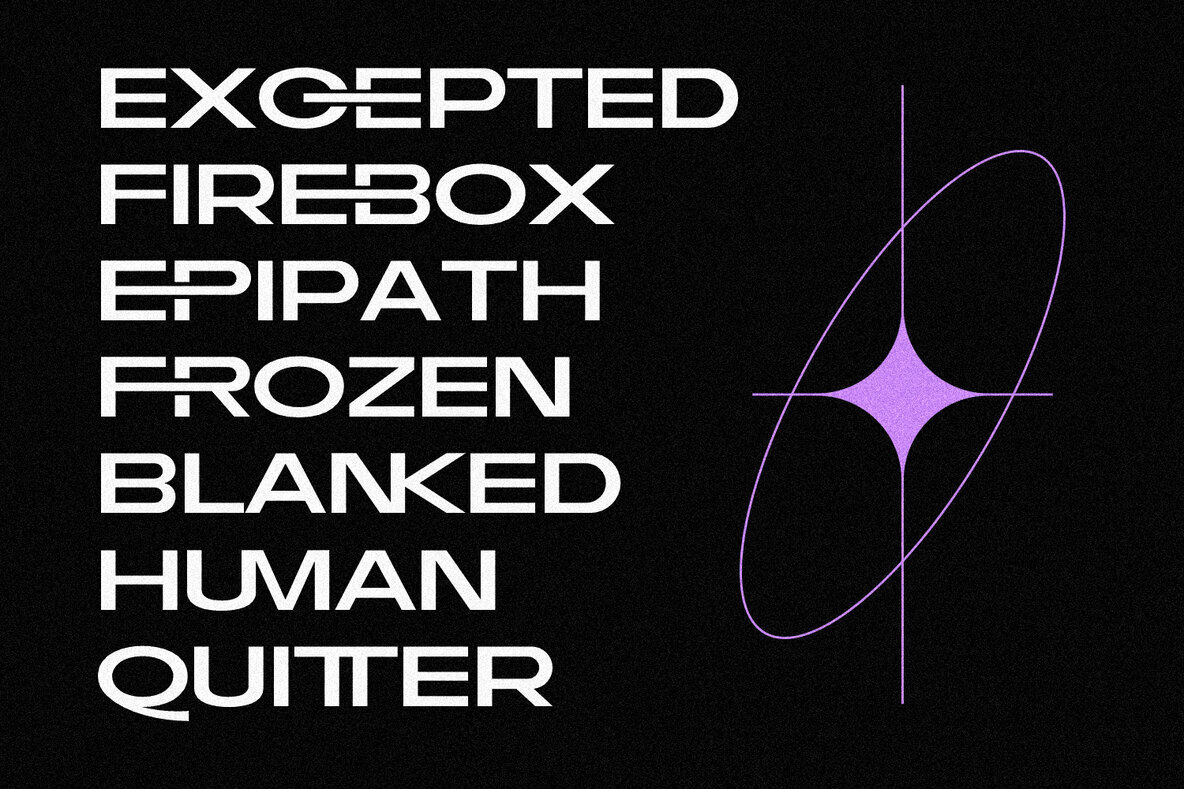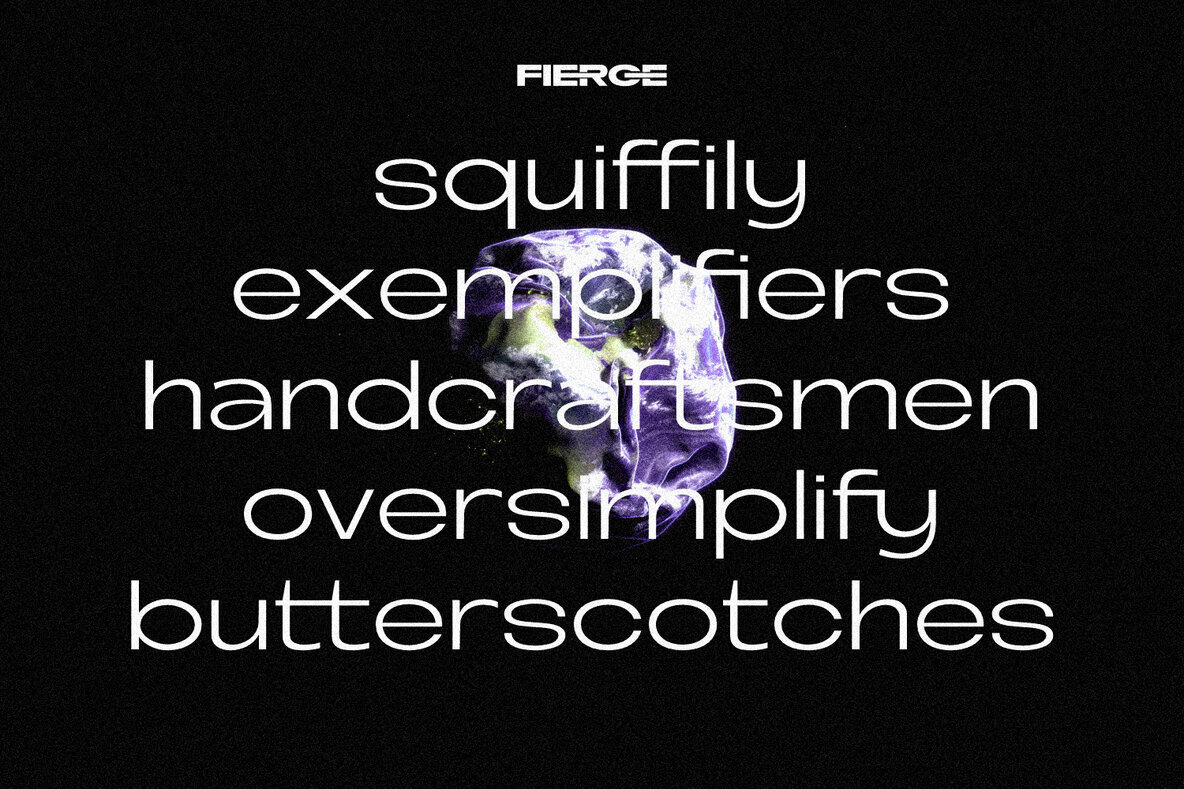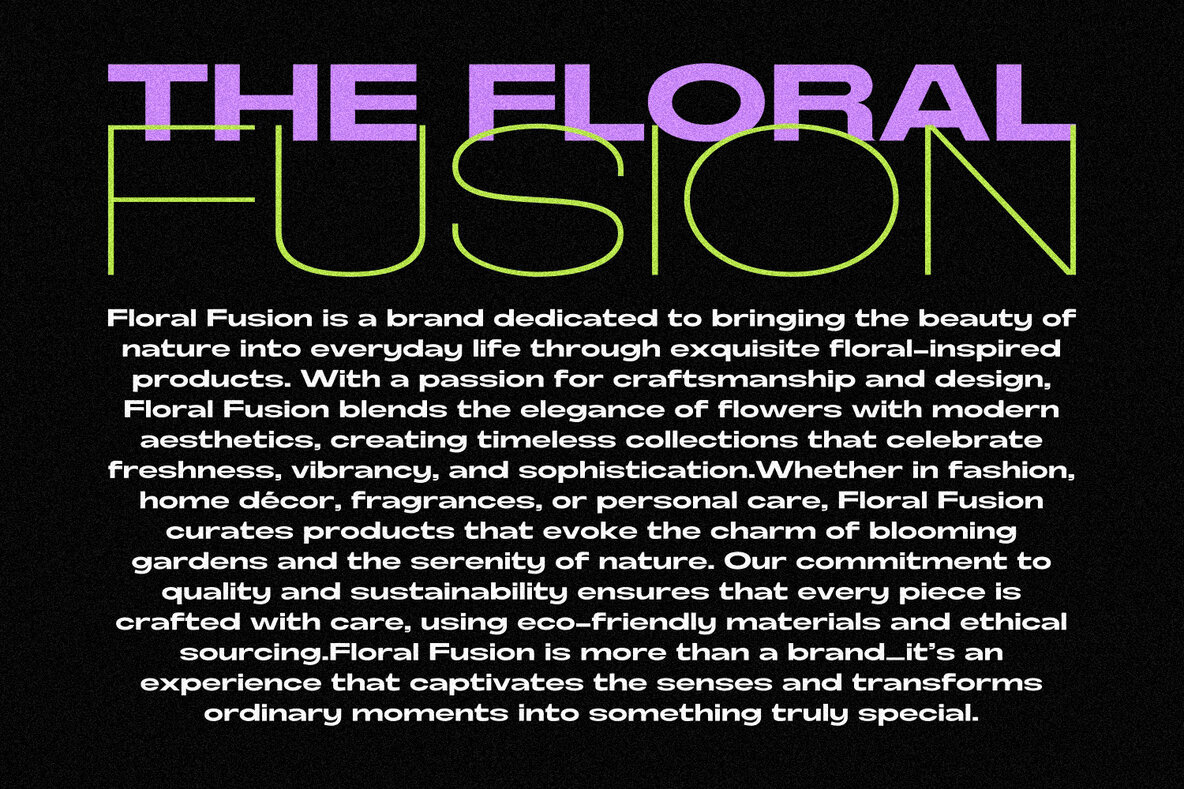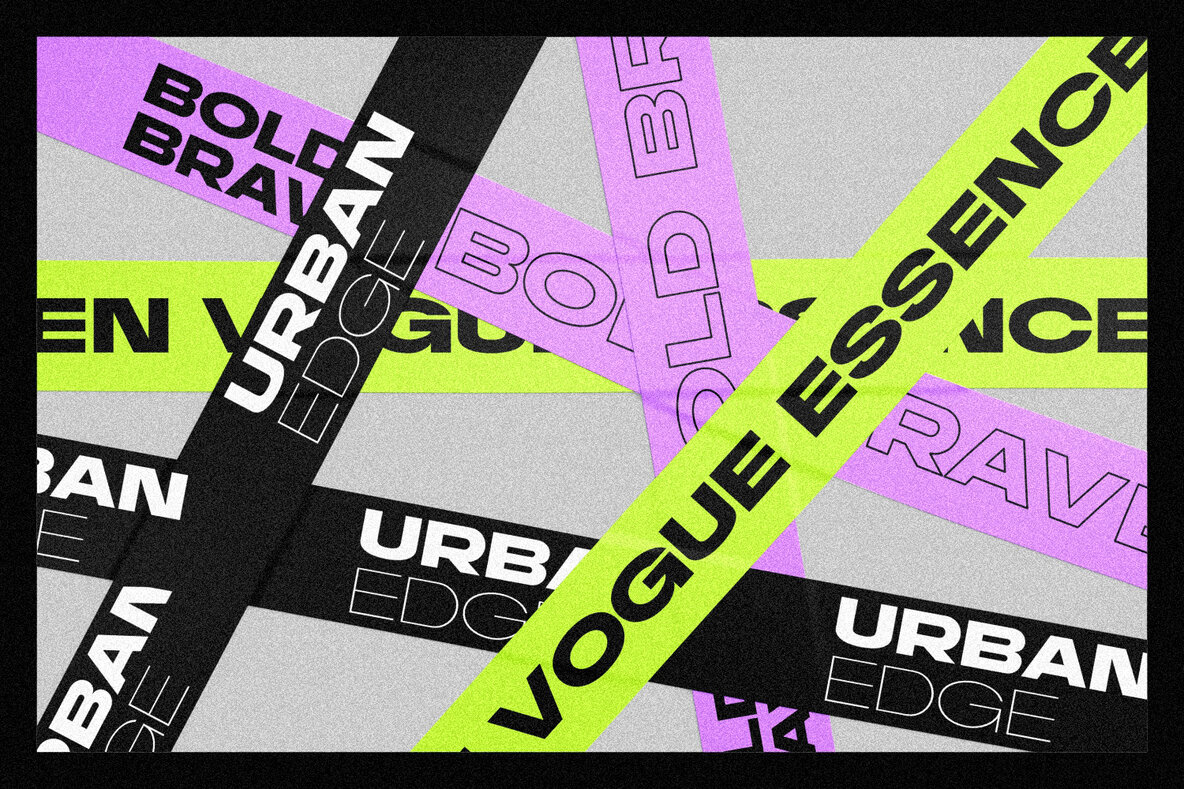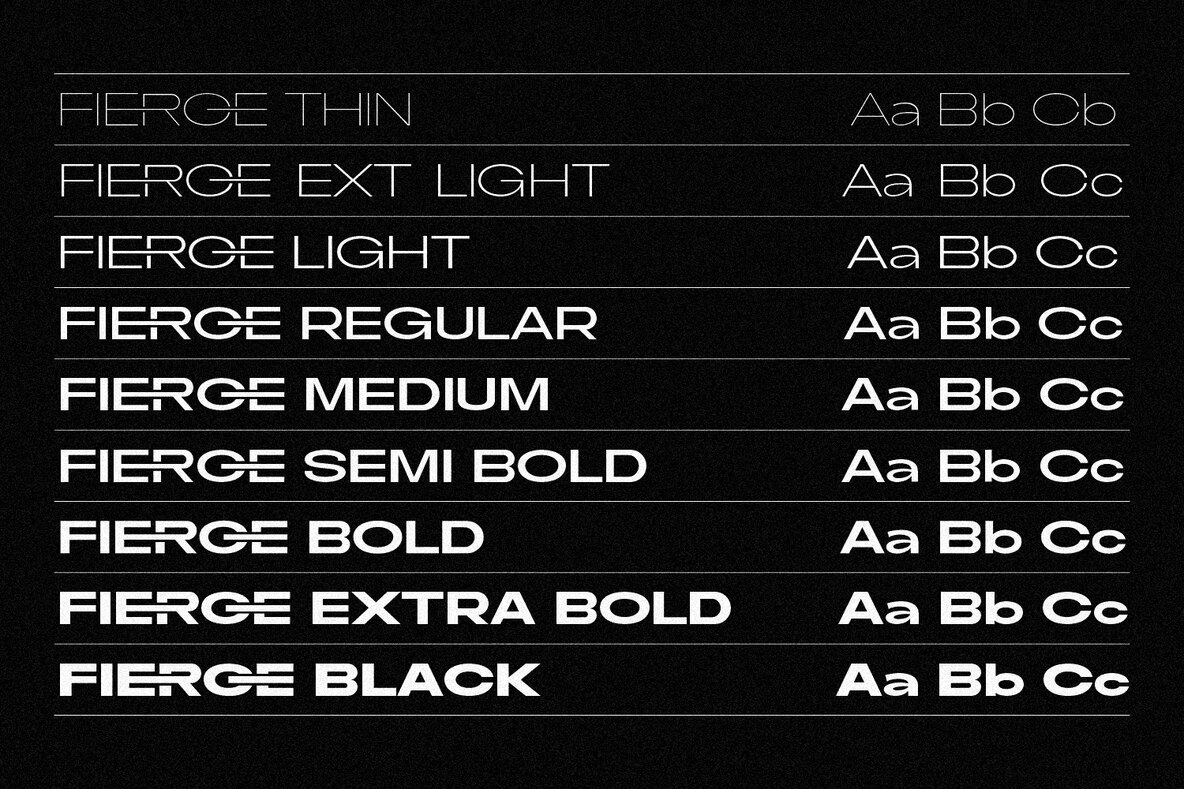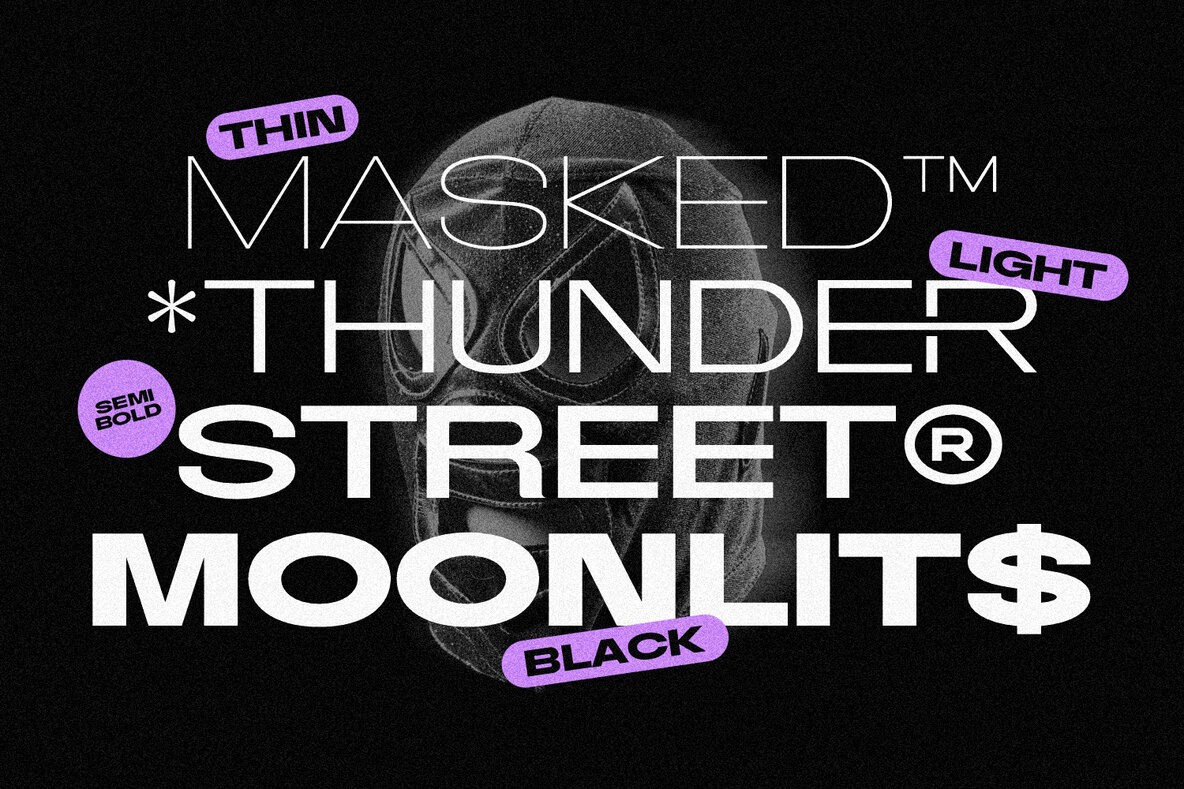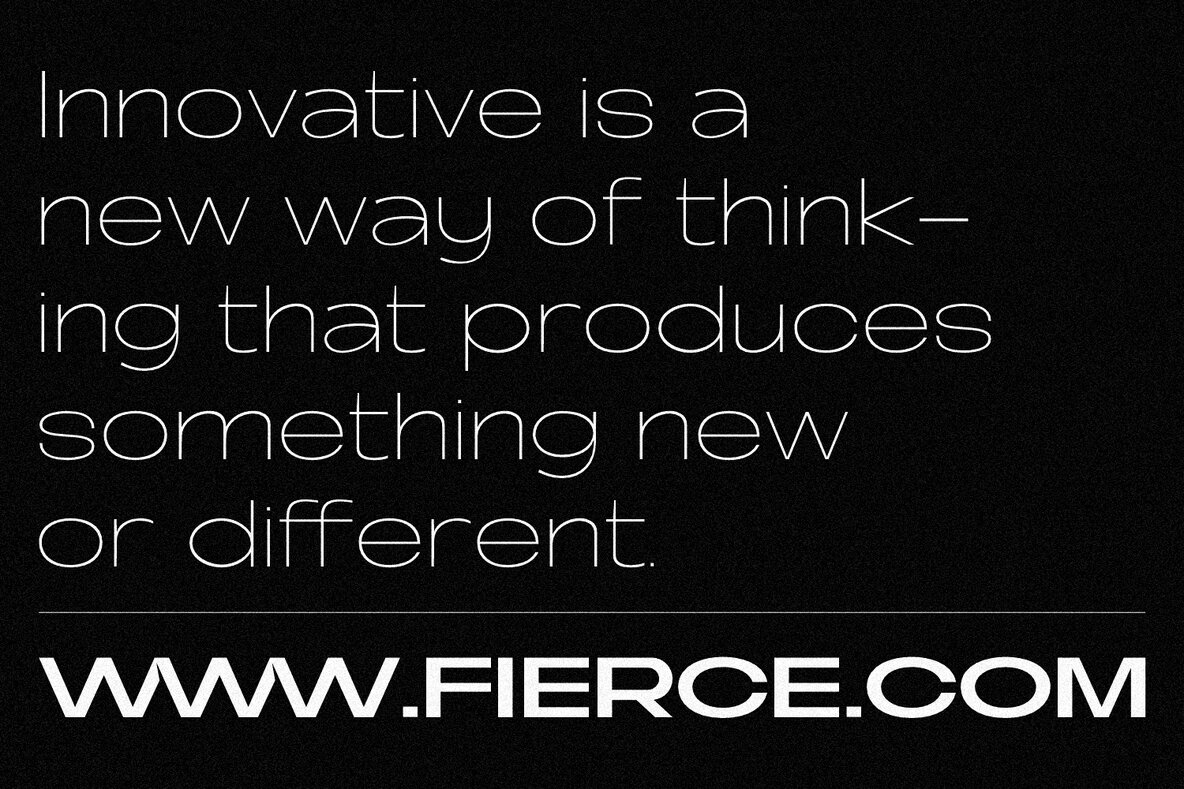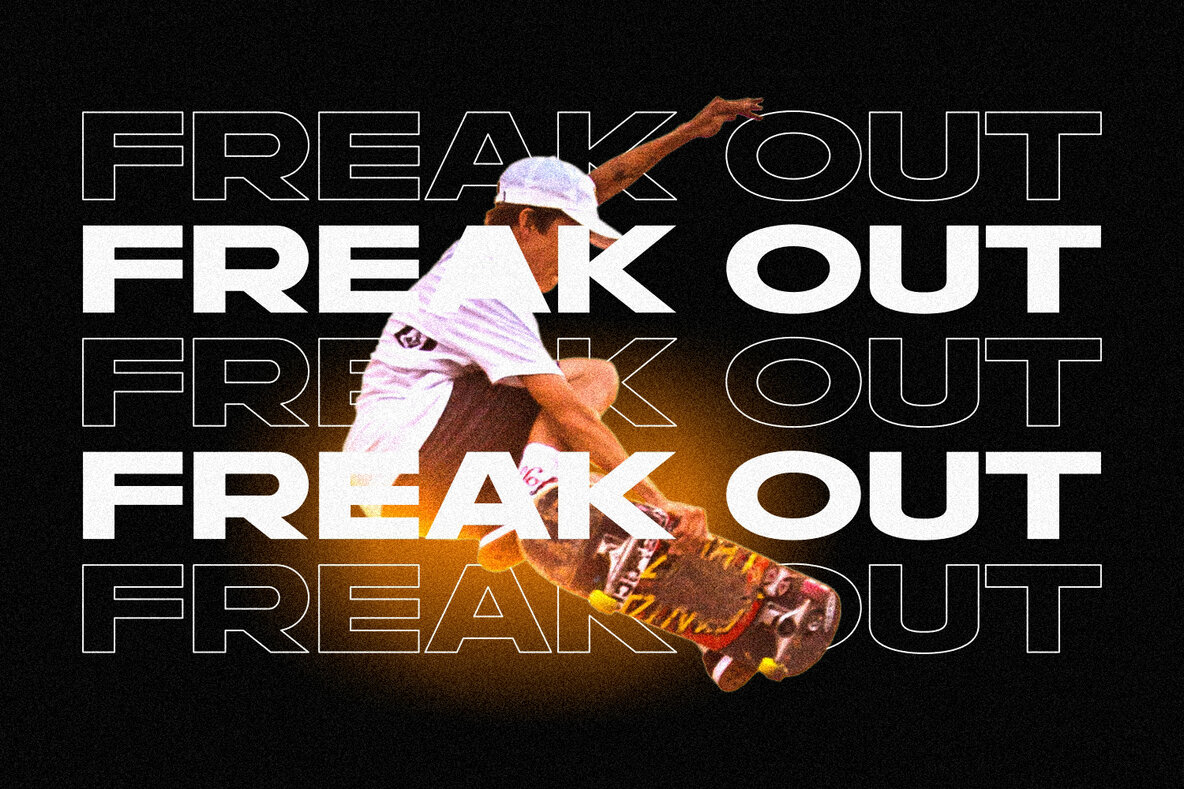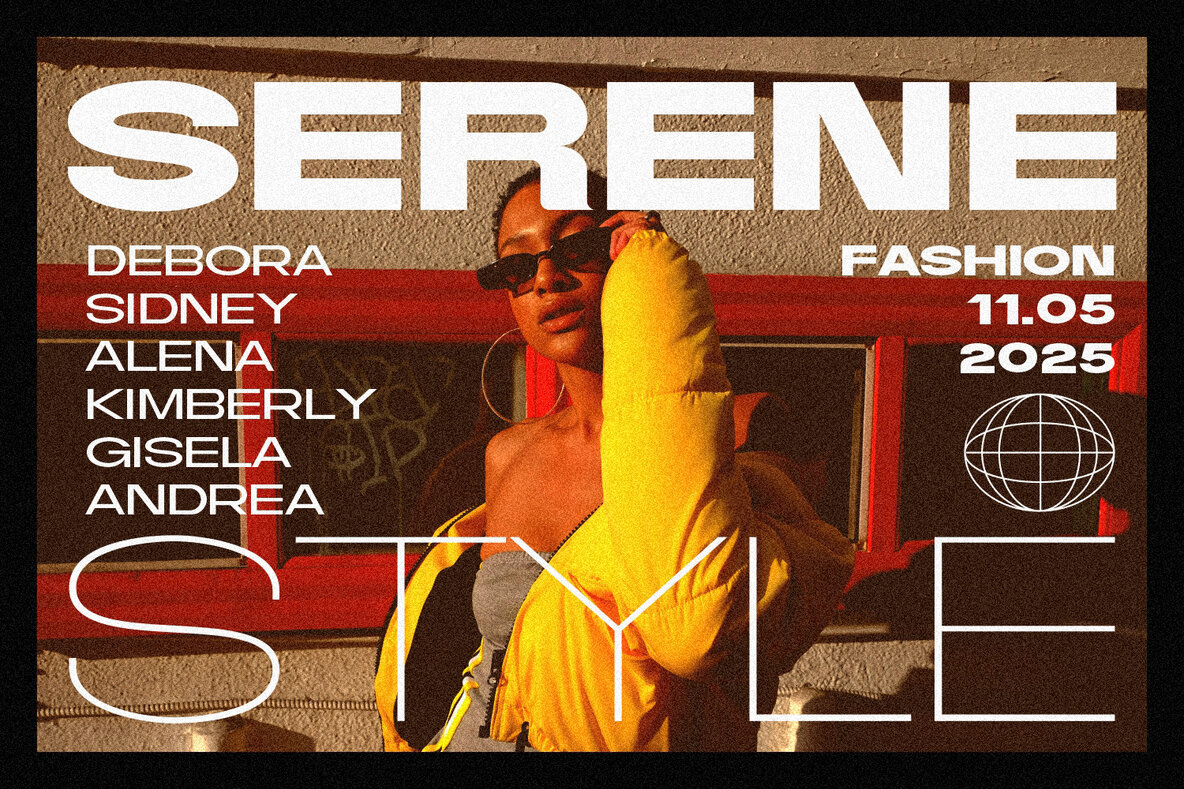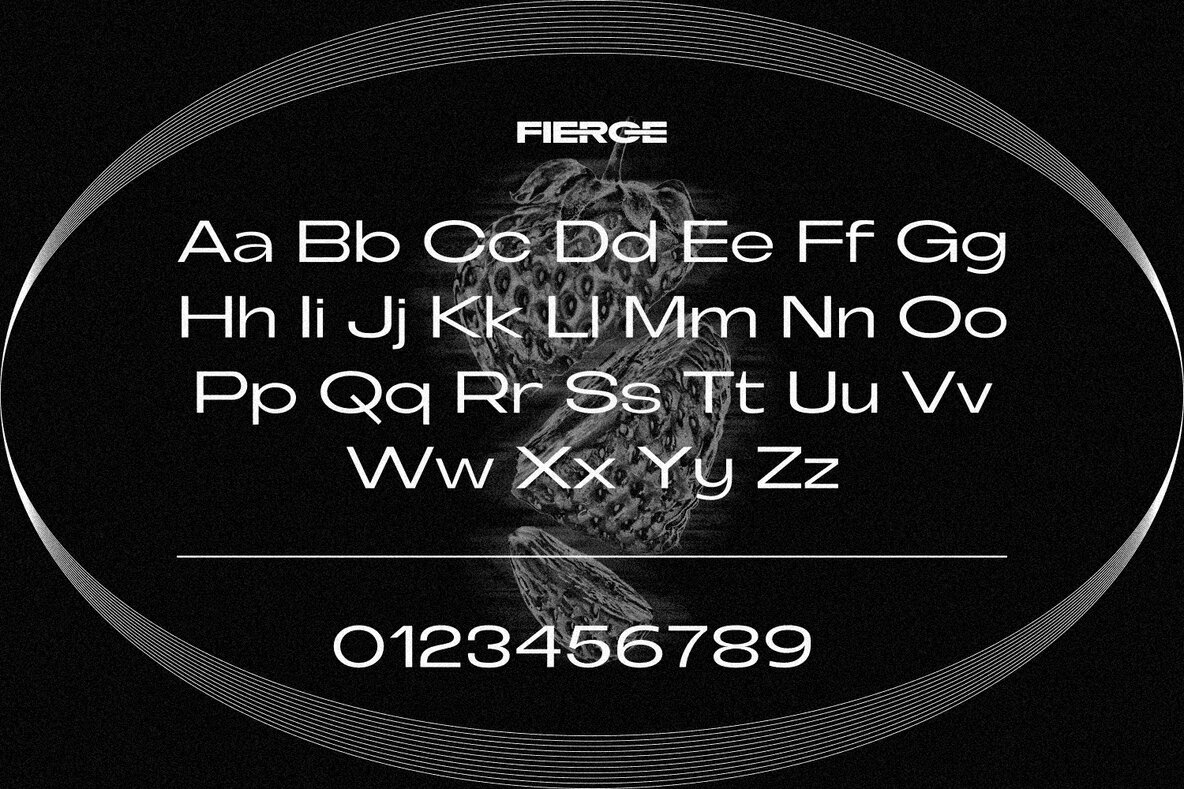
Fierce Font
Introducing a fierce sans-serif typeface that embodies power, versatility, and bold expression. Designed with nine distinct styles, ranging from Thin to Black, this typeface adapts effortlessly to any design need—whether sleek and refined or strong and commanding. With alternate characters and stylish ligatures, it offers a dynamic edge, allowing for customized looks that enhance creativity and impact. Its clean yet assertive letterforms exude confidence, making it perfect for branding, editorial design, sports, fashion, and high-energy visual statements.